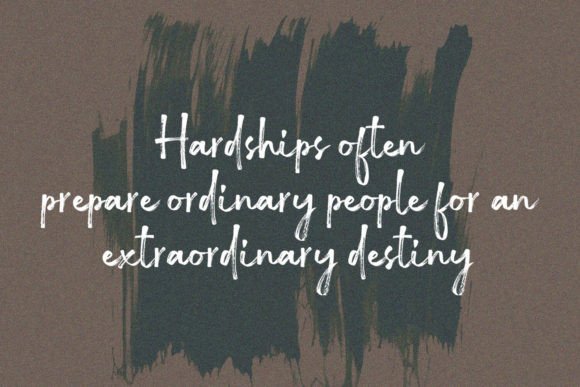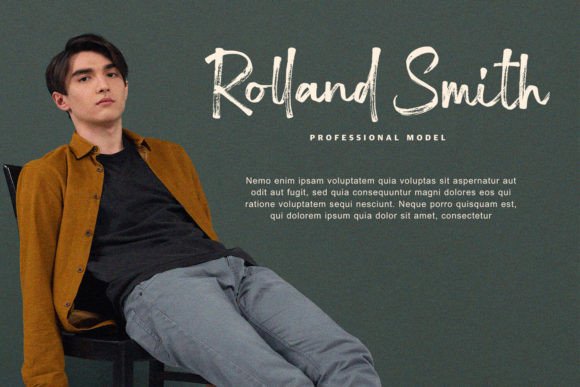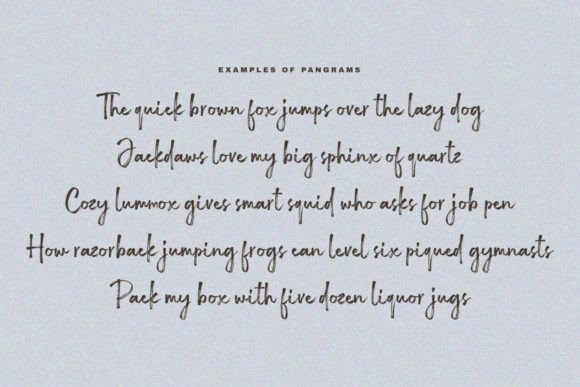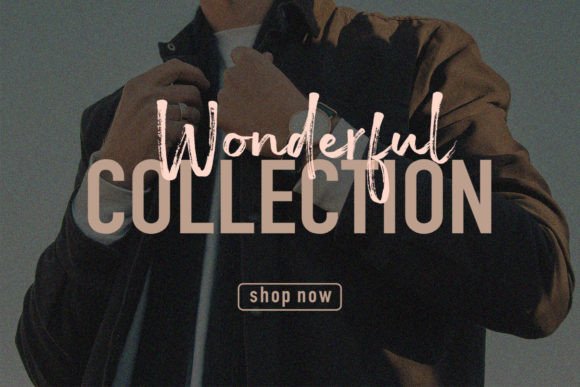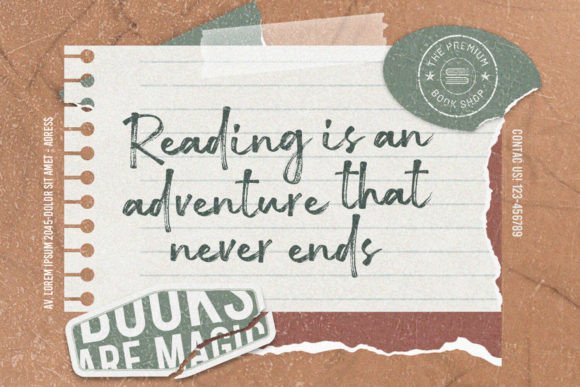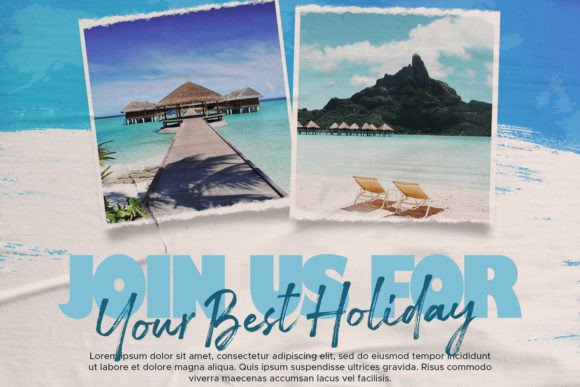
Discover the Elegance of Hardshock Font: Elevate Your Designs with a Timeless Touch
In the world of typography, fonts play a pivotal role in conveying messages, evoking emotions, and adding personality to designs. For designers, crafters, and anyone looking to make a statement with their visual projects, finding the right font can be a game-changer. This is where the Hardshock Font comes into play—a flowing handwritten font that embodies an elegant touch, perfect for making your favorite projects stand out. With its incredibly distinct and timeless style, Hardshock is poised to capture hearts and inspire spectacular designs.
The Essence of Hardshock Font
Hardshock Font is characterized by its elegant, flowing script that brings a touch of sophistication and grace to any project. Its unique, handwritten style ensures that each letter, word, and sentence flows seamlessly into the next, creating a harmonious and visually appealing text. This font is not just a means of communication; it’s an expression of art that can elevate your designs, making them more captivating and memorable.
Why Choose Hardshock Font?
- Elegant and Distinctive: The Hardshock Font boasts an elegant touch that sets it apart from more conventional fonts. Its distinctive style ensures your projects have a unique identity that captures attention.
- Versatile: Whether you’re working on a logo, a website, a poster, or any digital or print project, Hardshock Font adapts beautifully, ensuring your design looks great across various platforms.
- Timeless Appeal: Trends in design come and go, but the Hardshock Font’s classic and timeless style ensures your projects remain relevant and stylish for years to come.
- User-Friendly: Designed with usability in mind, Hardshock Font is easy to read and works well for both headings and body text, making it a versatile choice for comprehensive design projects.
Applications of Hardshock Font
The versatility of Hardshock Font makes it suitable for a wide range of applications. Here are some of the most popular uses:
- Branding and Logos: Create a lasting impression with a unique and elegant logo that speaks volumes about your brand’s personality.
- Website Design: Enhance your website’s aesthetic appeal and user experience with a font that is both beautiful and readable.
- Marketing Materials: From brochures and flyers to posters and banners, Hardshock Font can add a touch of elegance to your marketing materials, making them stand out.
- Digital and Print Media: Whether it’s an e-book, a magazine, or a newspaper article, this font ensures your content is presented in a stylish and engaging manner.
Tips for Using Hardshock Font Effectively
To maximize the impact of Hardshock Font in your designs, consider the following tips:
- Pair with Complementary Fonts: For optimal readability and aesthetic balance, pair Hardshock Font with simpler fonts for body text or headings.
- Adjust Letter Spacing: Fine-tune the letter spacing to ensure optimal readability and to fit the tone of your project.
- Experiment with Sizes: Don’t be afraid to experiment with different font sizes to create visual hierarchy and emphasize key messages.
The Hardshock Font is more than just a typeface; it’s a design element that can transform your projects with its elegant, flowing script. Its distinct and timeless style makes it an excellent choice for designers and crafters looking to add a touch of sophistication and uniqueness to their work. Whether you’re creating a brand identity, designing a website, or crafting marketing materials, Hardshock Font is sure to leave a lasting impression. Embrace the elegance and versatility of Hardshock Font, and watch your designs come to life in spectacular fashion.